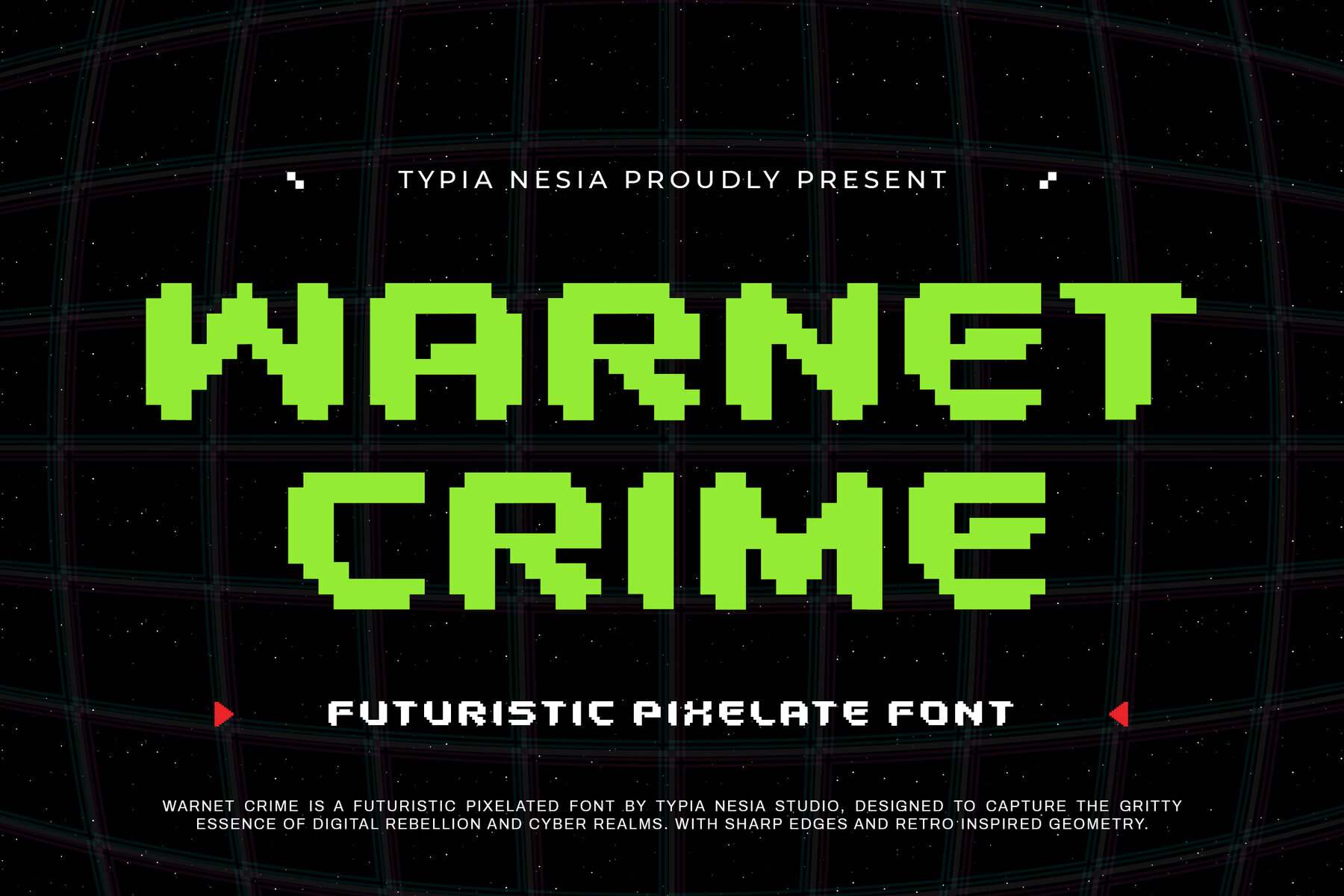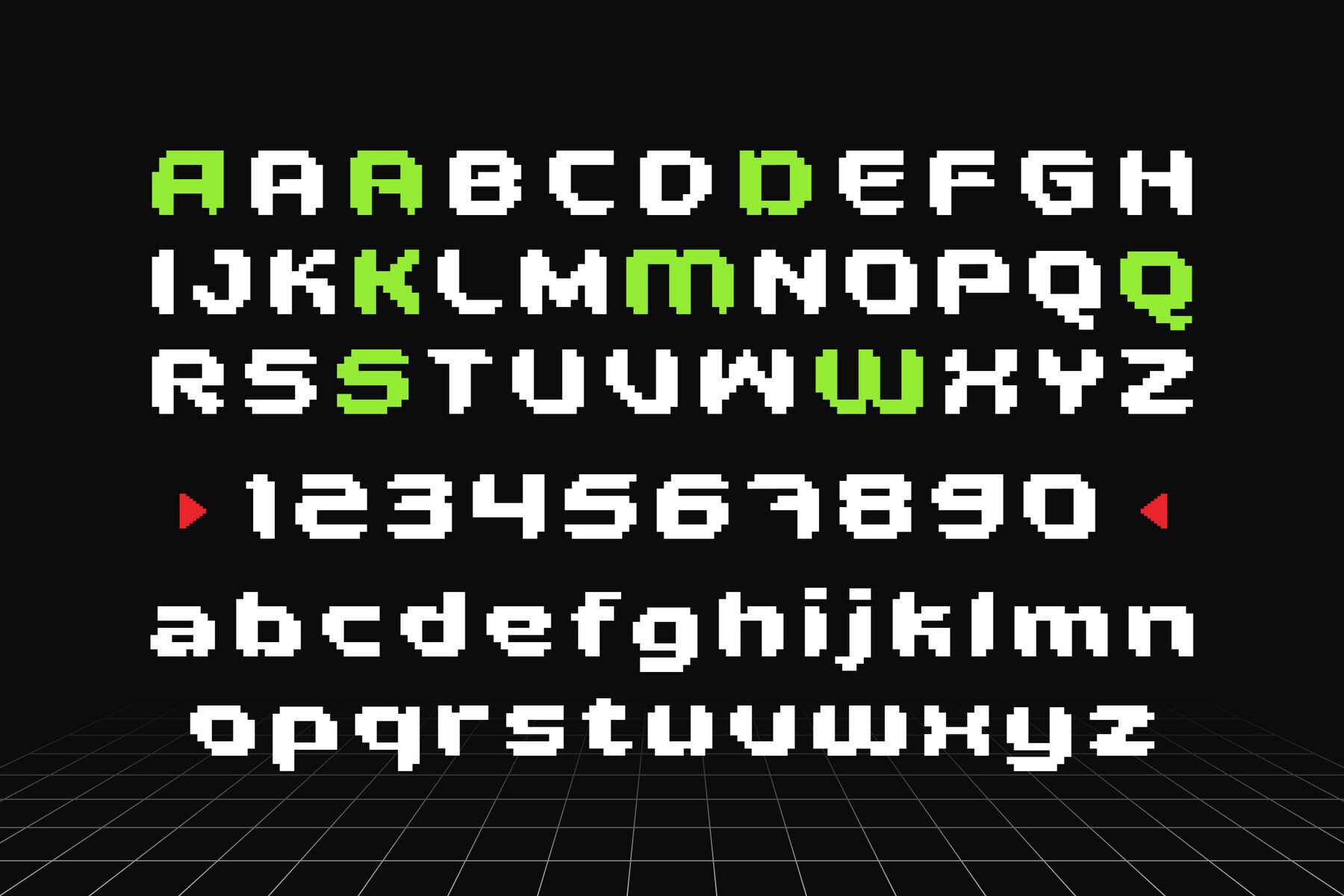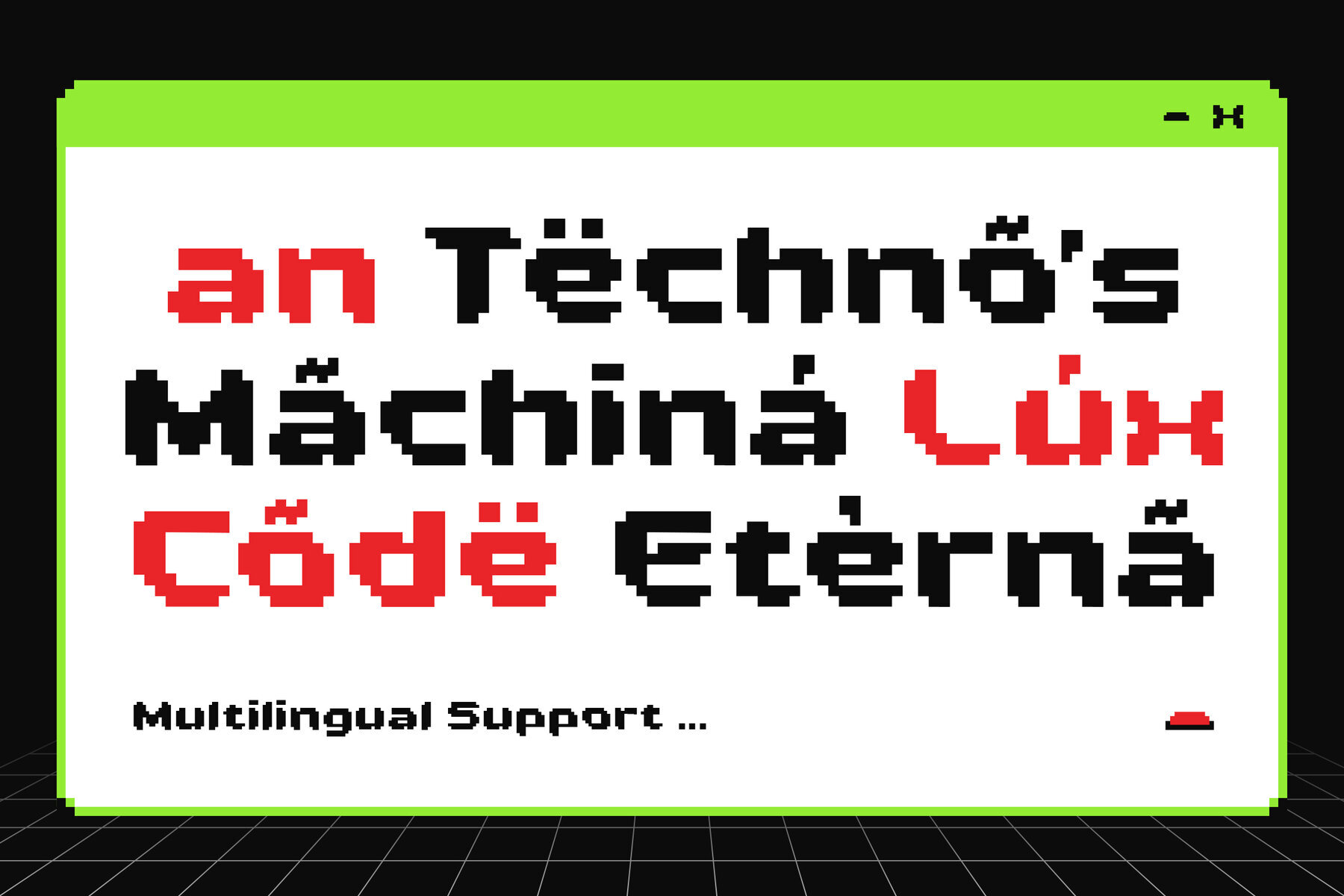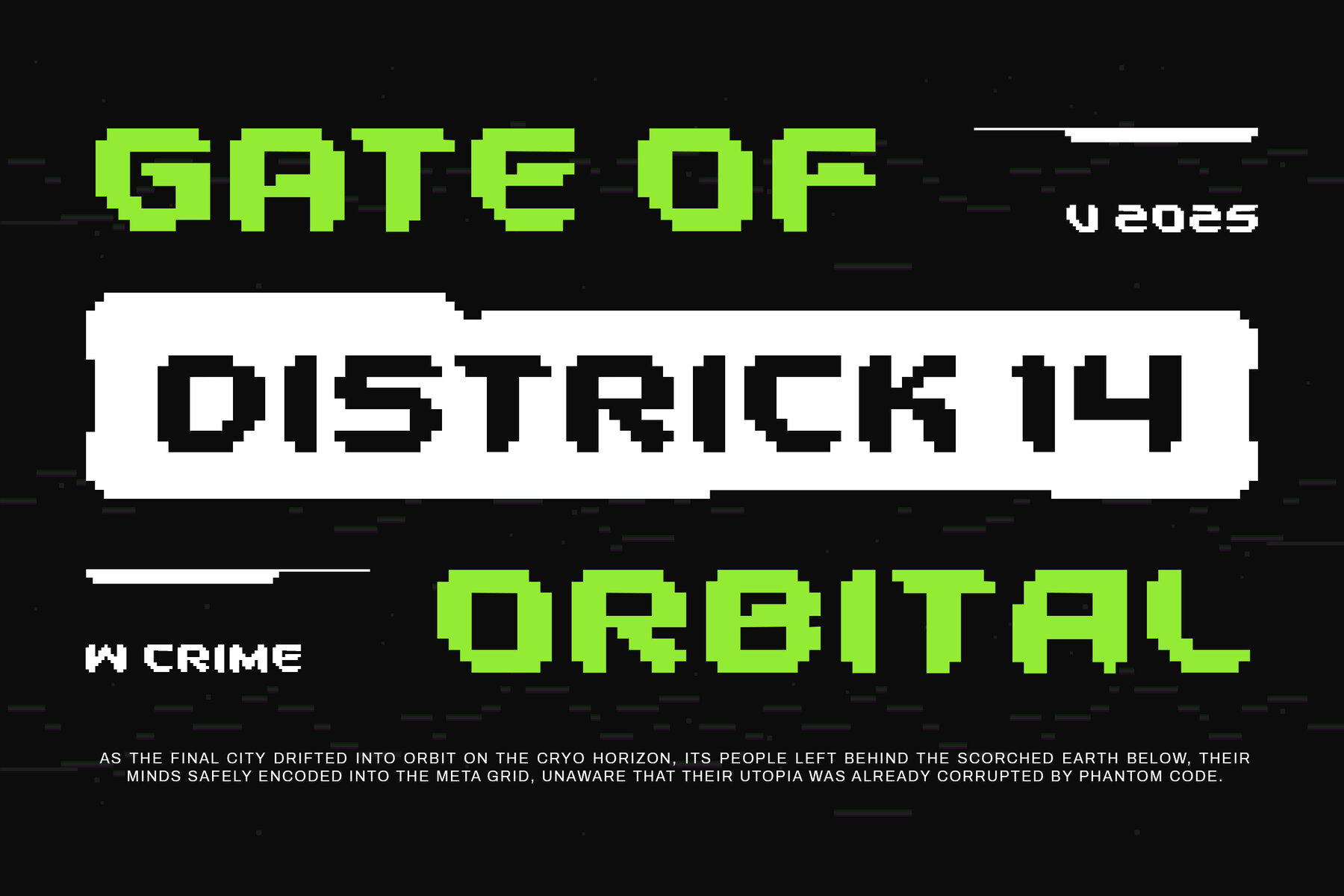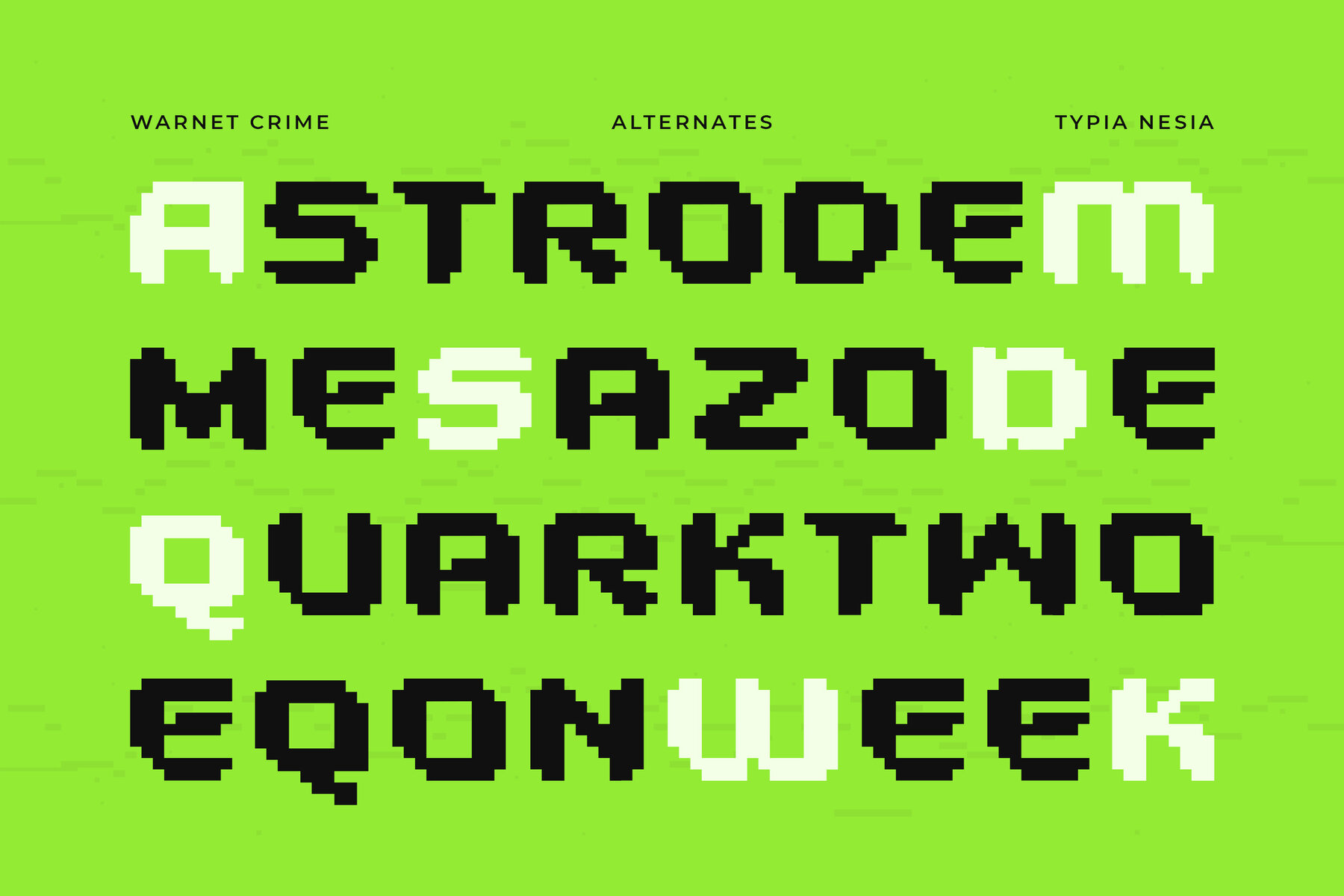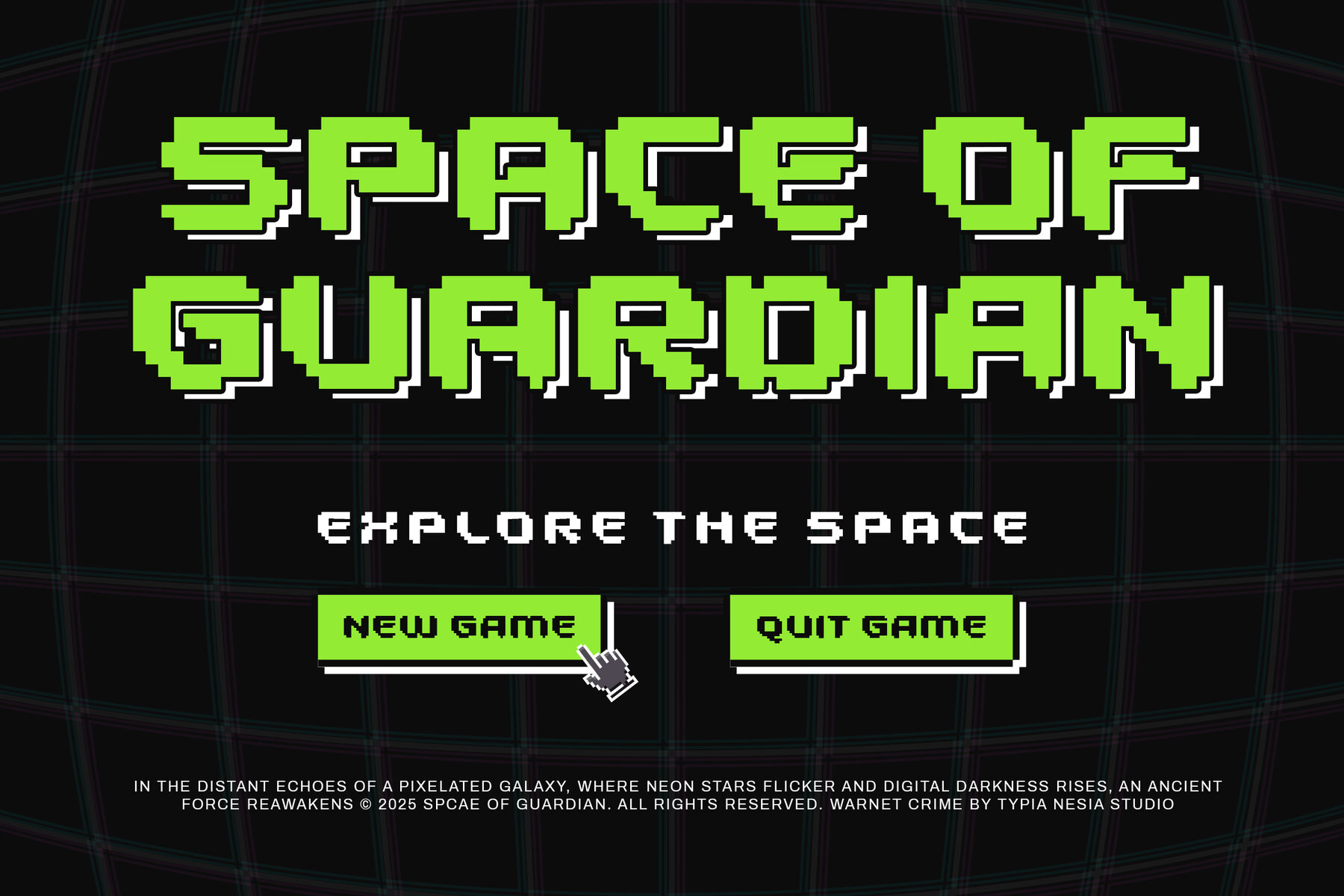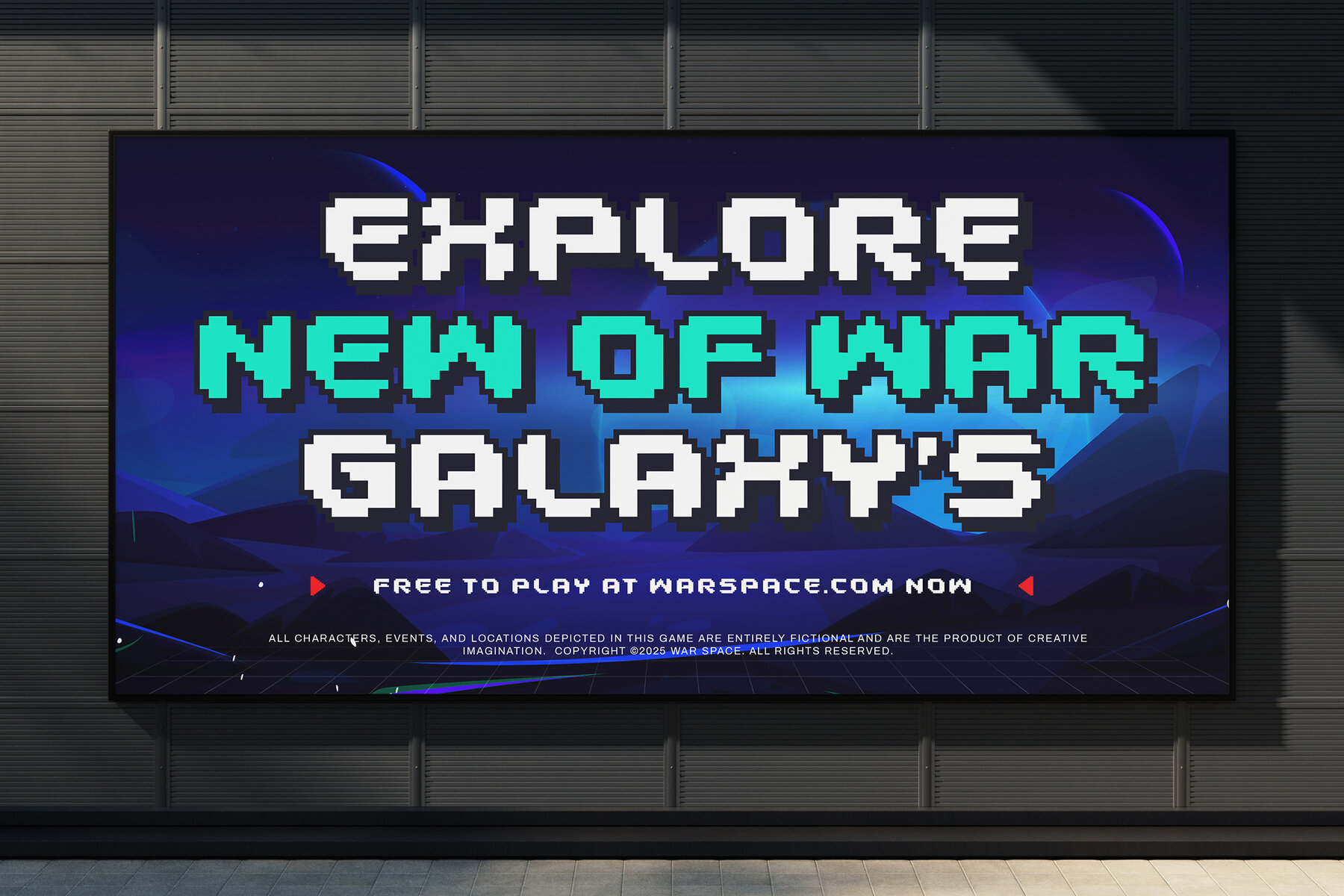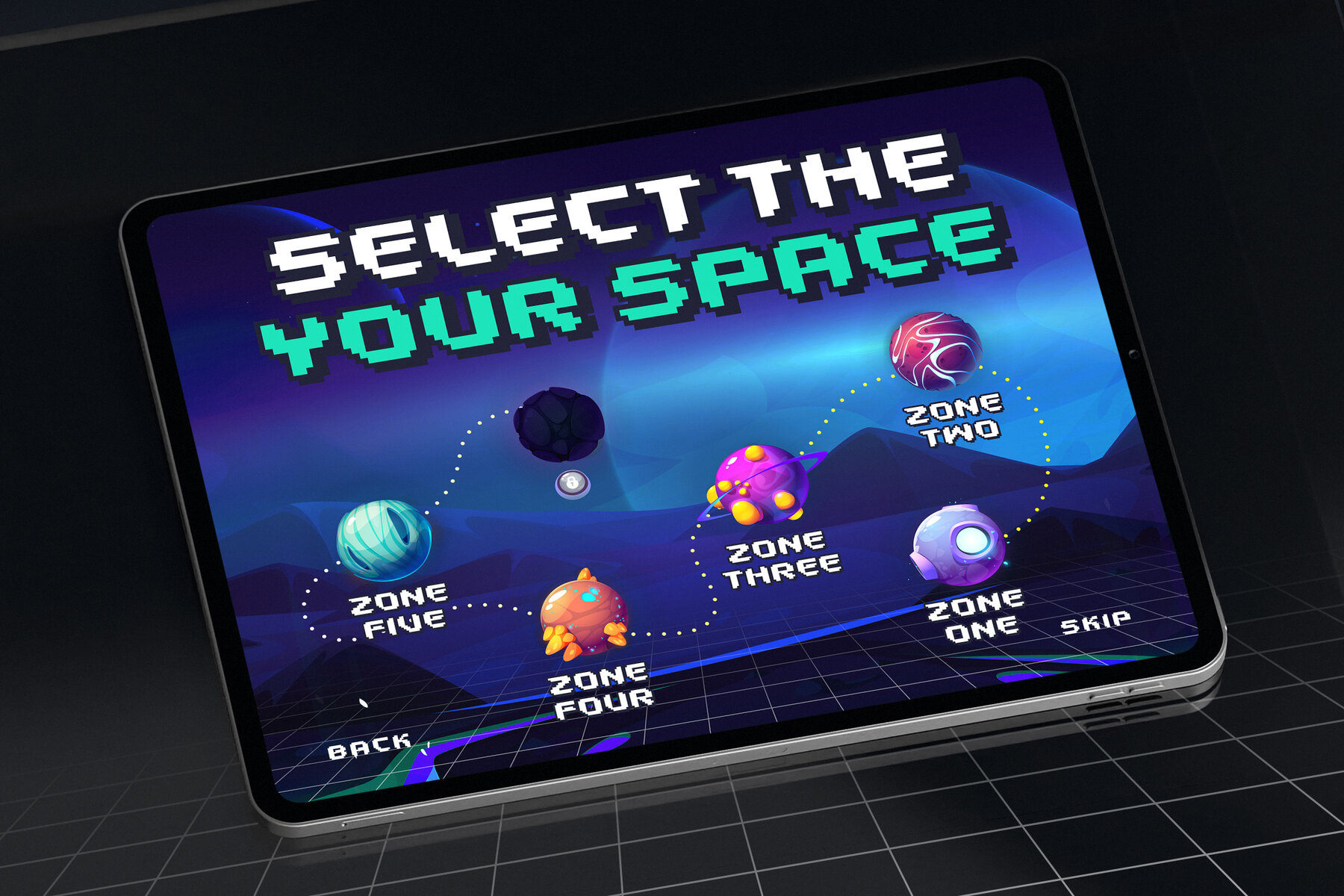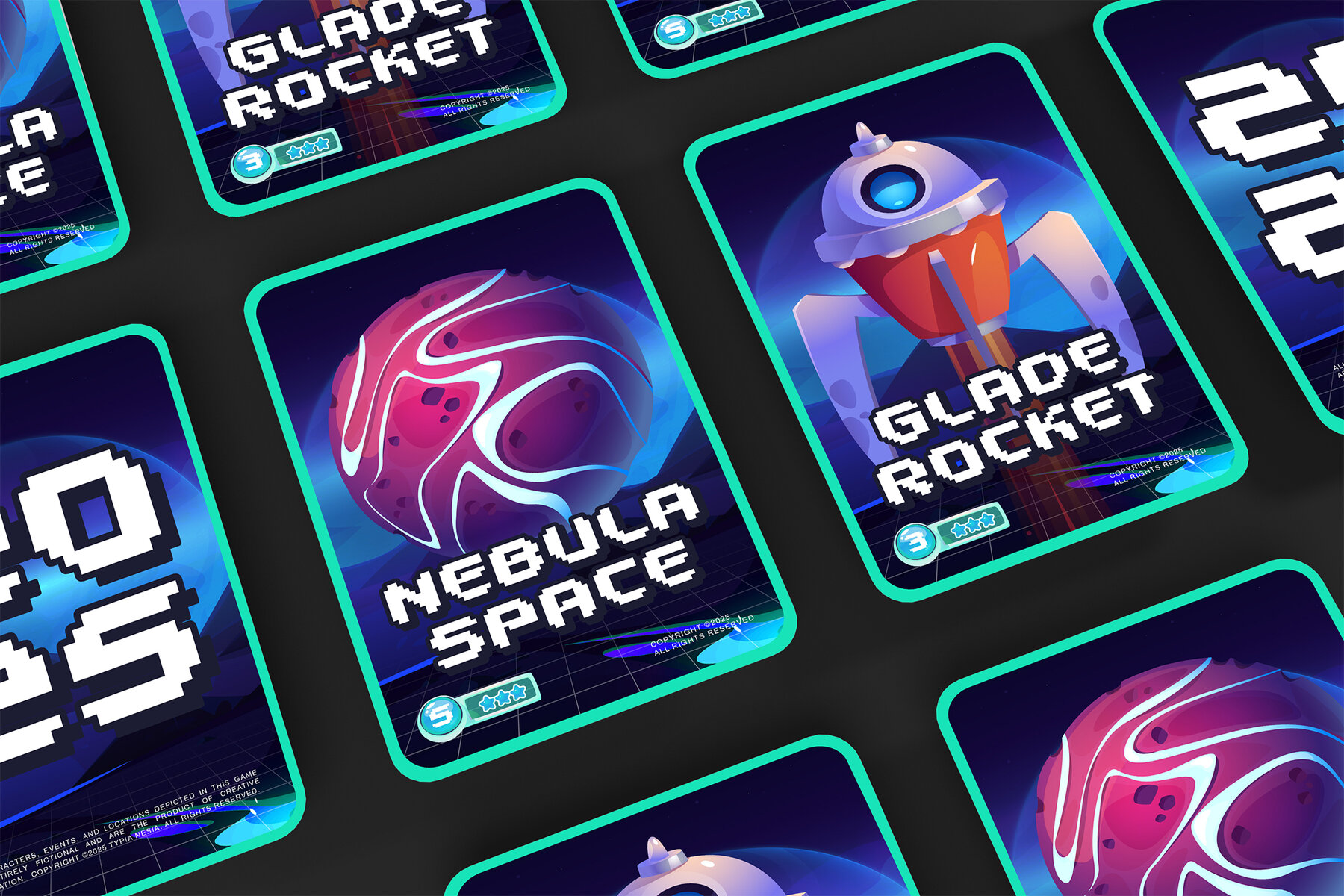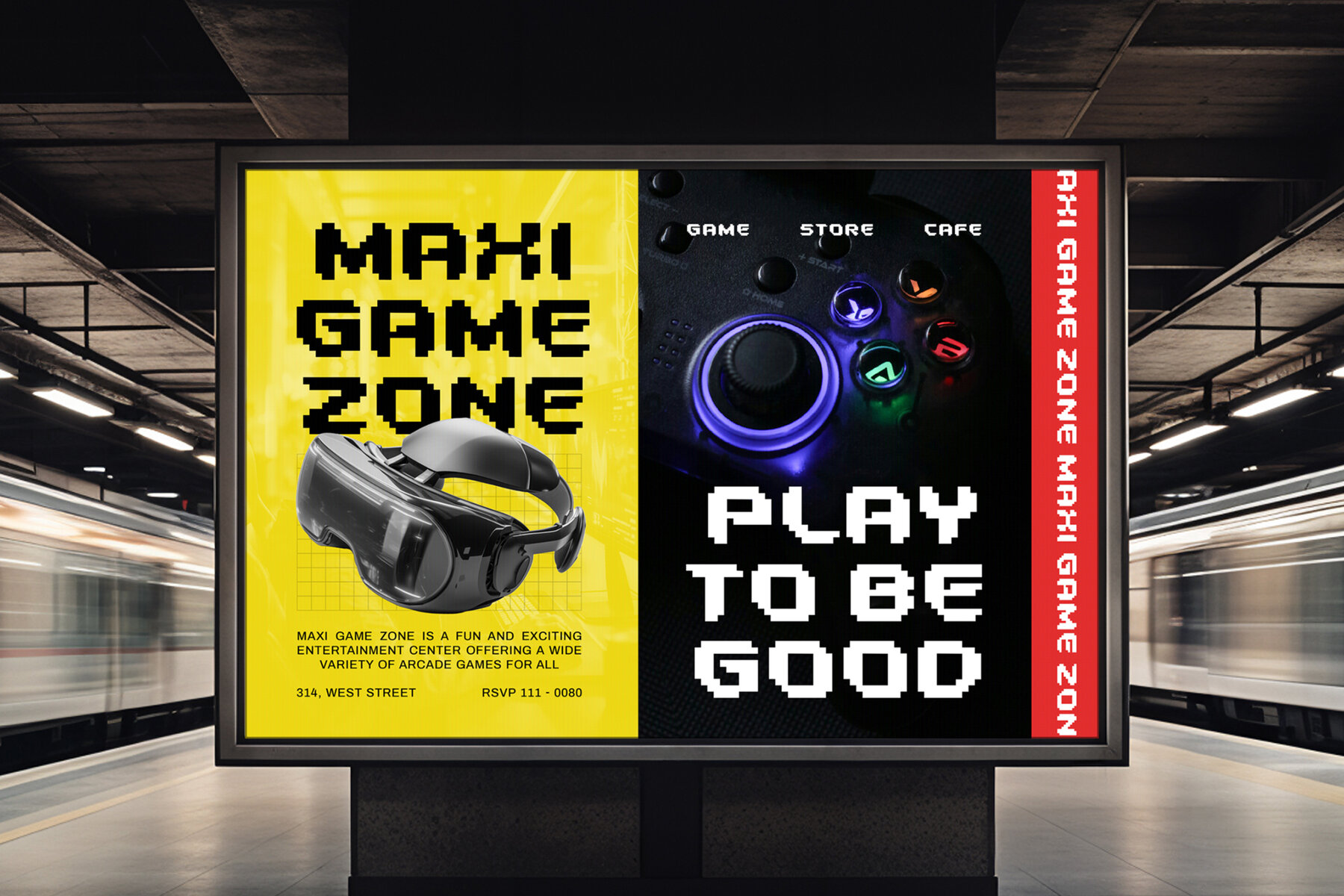
Warnet Crime Font
Warnet Crime Regular
Warnet Crime brings a bold, futuristic pixel vibe that captures the nostalgia of retro gaming while adding a modern cyberpunk twist. This display font features sharp, blocky edges and 8-bit inspired geometry, making it perfect for video game titles, digital posters, app designs, and tech branding. Whether you're working on arcade-style visuals, sci-fi themes, or rebellious digital campaigns, Warnet Crime's pixelated aesthetic delivers a standout look that is both gritty and digital. Elevate your designs with Warnet Crime, an essential choice for adding bold, pixel-perfect energy to your gaming, tech, and cyberpunk creations.Warnet Crime: Futuristic Pixelated Display Font